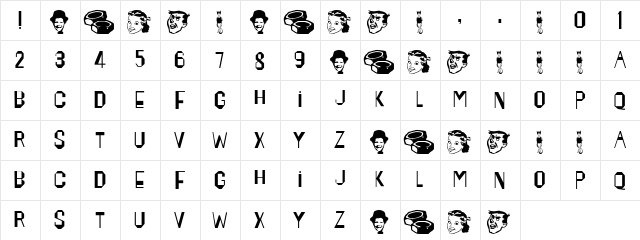
Maynard Regular
Design Context for Maynard Typeface
Maynard takes a measured approach to typography — its balanced proportions and neutral character make it a reliable workhorse for both digital and print work.